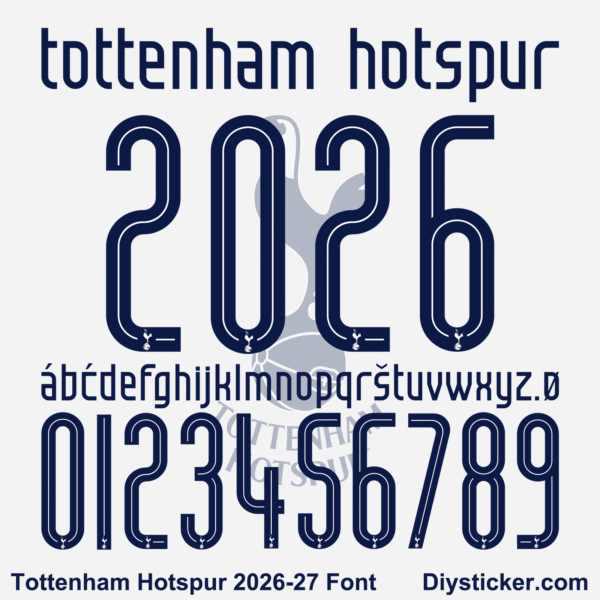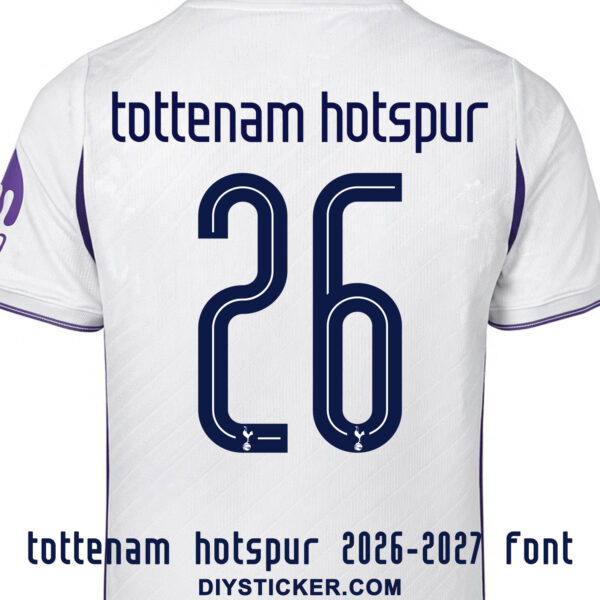
Capture the sleek, modern elegance of North London football with this premium typography asset. This package delivers the official-style Tottenham Hotspur 2026-2027 font and numeric vector layout, engineered for the upcoming domestic cup and European tournament campaigns. Built specifically for independent apparel brands, custom jersey printers, and vinyl cutting shops, this product features an automated instant digital download link immediately following secure checkout.
Tottenham Hotspur 2026-2027 Font & Numbers Vector Kit: Premium Club Tournament Customization
Upgrade your custom print production with the high-performance Tottenham Hotspur 2026-2027 font and complete numbers set. Designed to perfectly replicate the distinctive club look worn during cup competitions and European tournament stages, this digital toolkit offers unrivaled geometric precision. Whether you are creating a custom name-set for a passionate Spurs fan or compiling promotional sports signage, our vector files ensure factory-fresh alignment. Discover more iconic club layouts by exploring our curated Football Club Font repository.
Aesthetic Design Breakdown & Typography Engineering
The Tottenham Hotspur 2026-2027 font showcases a highly sophisticated, inline geometric layout that beautifully balances modern minimalism with retro athletic roots:
Sleek Inline Stripe Geometry: The core feature of the numeric set is a clean, continuous white center stripe running precisely through the middle of the deep navy blue strokes. This dual-line inline effect gives the digits a swift, aerodynamic appearance on the pitch.
Elongated, Semi-Rounded Counters: The characters feature a tall, condensed architecture with flat, parallel vertical edges paired with perfectly rounded tops and bottoms. This layout ensures maximum legibility while maintaining a narrow footprint across the jersey shoulders.
Integrated Club Identity: Positioned perfectly at the lower terminal or baseline curve of each digit is the iconic Tottenham cockerel crest, ensuring absolute replica authenticity for high-end customization.
Classic Audacious True Navy Palette: Designed to deliver striking visual contrast when rendered in deep navy against the club’s traditional pristine white home kits, or inverted beautifully for away and third kit variations.